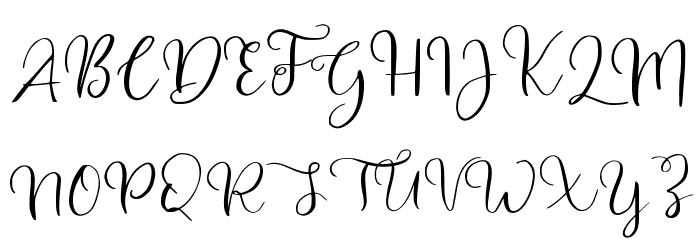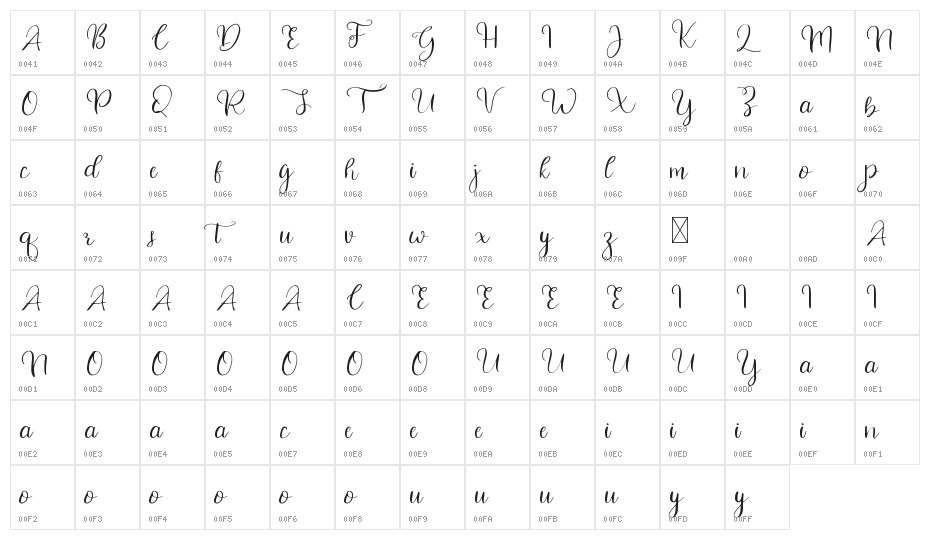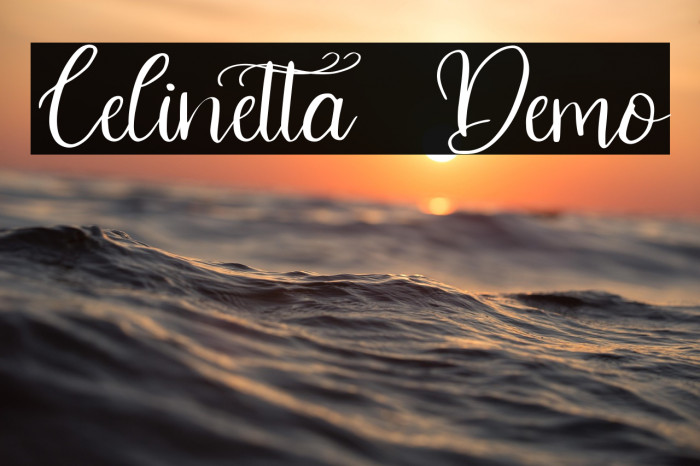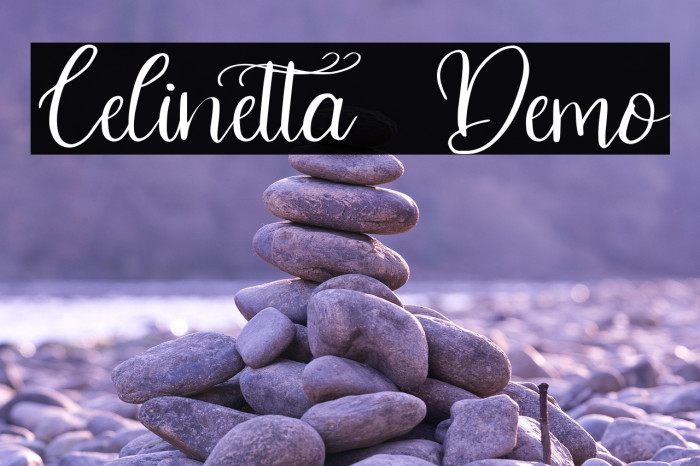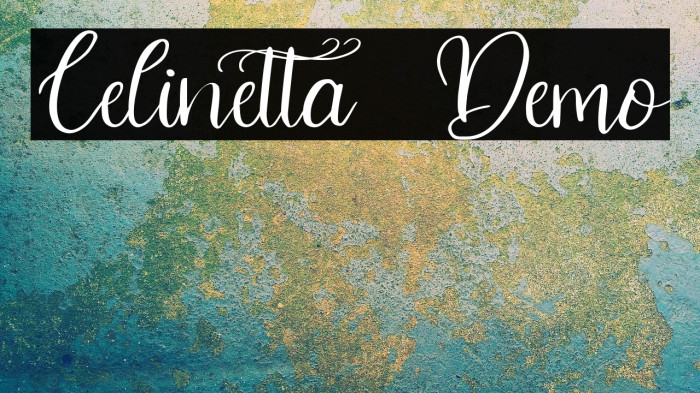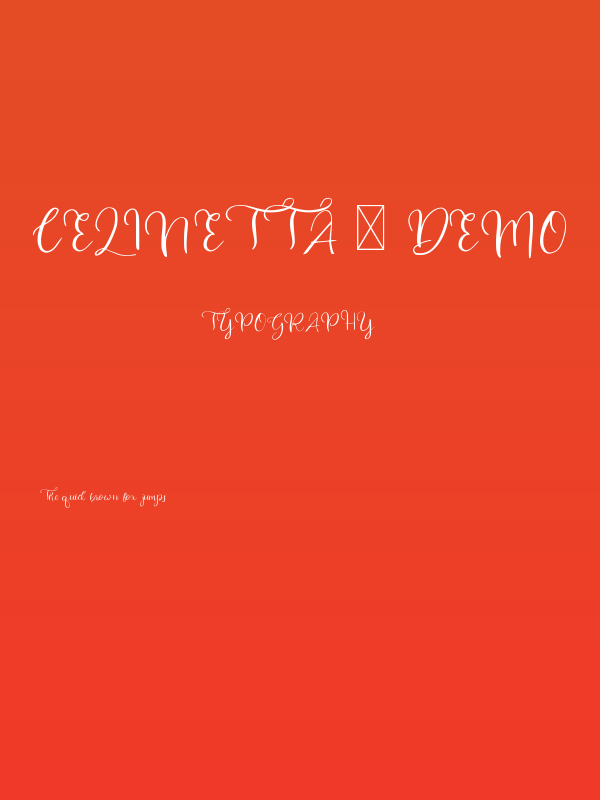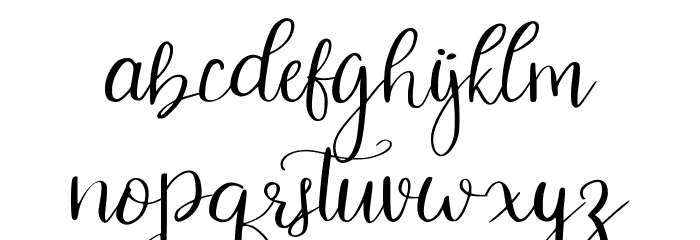
Celinetta - Demo Font
Celinetta - Demo Description
This font features an elegant and flowing script style, characterized by its graceful curves and intricate loops. The uppercase letters are particularly ornate, with flourishes that extend beyond the baseline, adding a touch of sophistication and charm. The lowercase letters maintain a consistent flow, complementing the uppercase with their own subtle embellishments. The overall design is reminiscent of classic calligraphy, making it suitable for projects that require a touch of elegance and refinement. The font's delicate strokes and balanced proportions ensure readability while maintaining its decorative appeal.